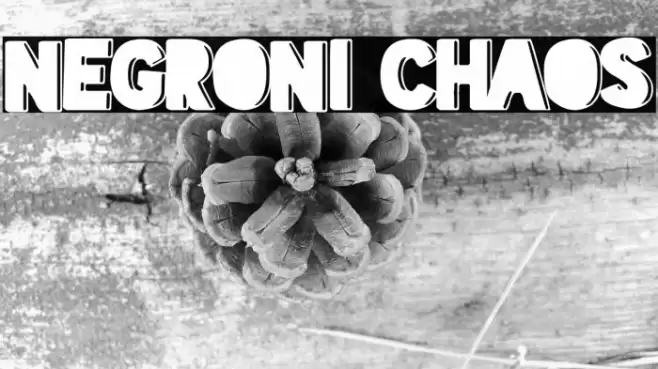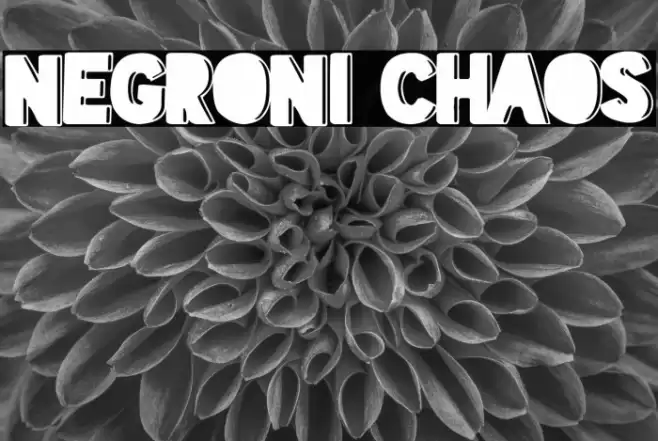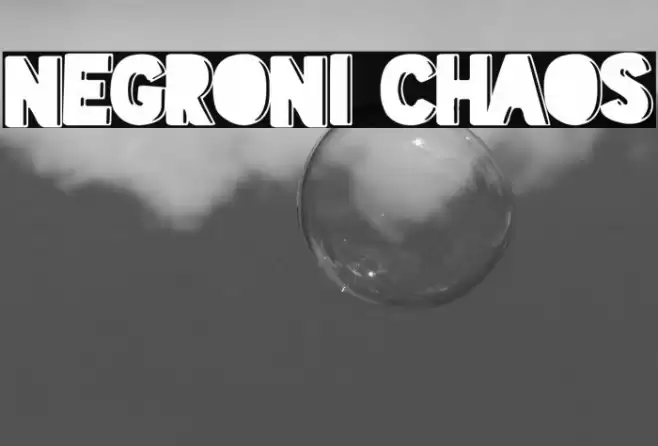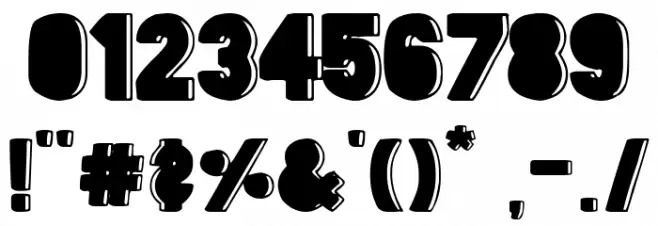
Negroni Chaos Font
Negroni Chaos Description
This font features a bold and striking design with a playful, chaotic aesthetic. The letters are thick and heavily stylized, with a unique cut-out effect that adds depth and dimension. The uppercase and lowercase letters maintain a consistent style, creating a cohesive look across the alphabet. The numbers and special characters follow the same bold and dynamic design, making them stand out prominently. This font's distinctive style is perfect for grabbing attention and making a statement.
A bold, playful font with a chaotic, cut-out design from Cartoon fonts.
- Proposed Projects: Ideal for posters, album covers, branding projects, and any design that requires a bold, eye-catching typeface.
- Overall Style: Modern, Decorative